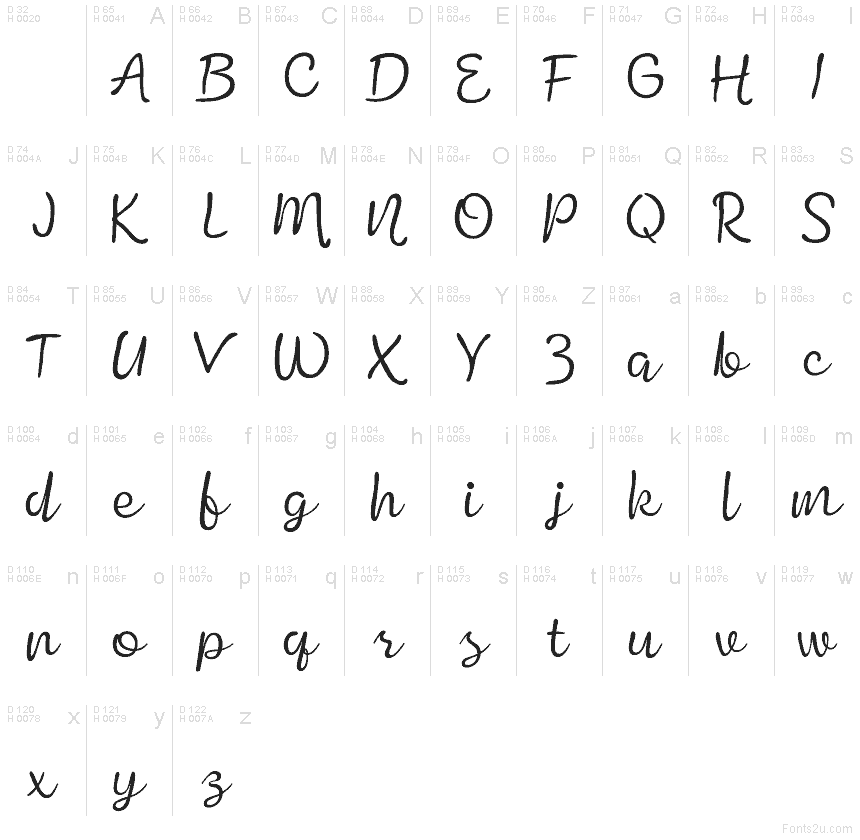
CS Mercy Regular Demo
CS Mercy font by Craft Supply Co. is a free handwritten script font that solves a common pain point: getting real hand-lettered warmth without muddled readability. Its soft loops, relaxed slant, and airy spacing keep lines open, while a gentle inky grain adds texture without turning fuzzy. The strokes feel like a smooth gel pen on toothy paper—friendly, tidy, and easy to skim even at smaller sizes.
Using CS Mercy, headlines and short phrases snap into place with a breezy rhythm that still looks polished. This free font shines on wedding suites, boutique branding, packaging labels, social posts, greeting cards, event posters, and blog headers. For balance, pair it with a clean geometric sans and bump tracking slightly for all-caps accents.